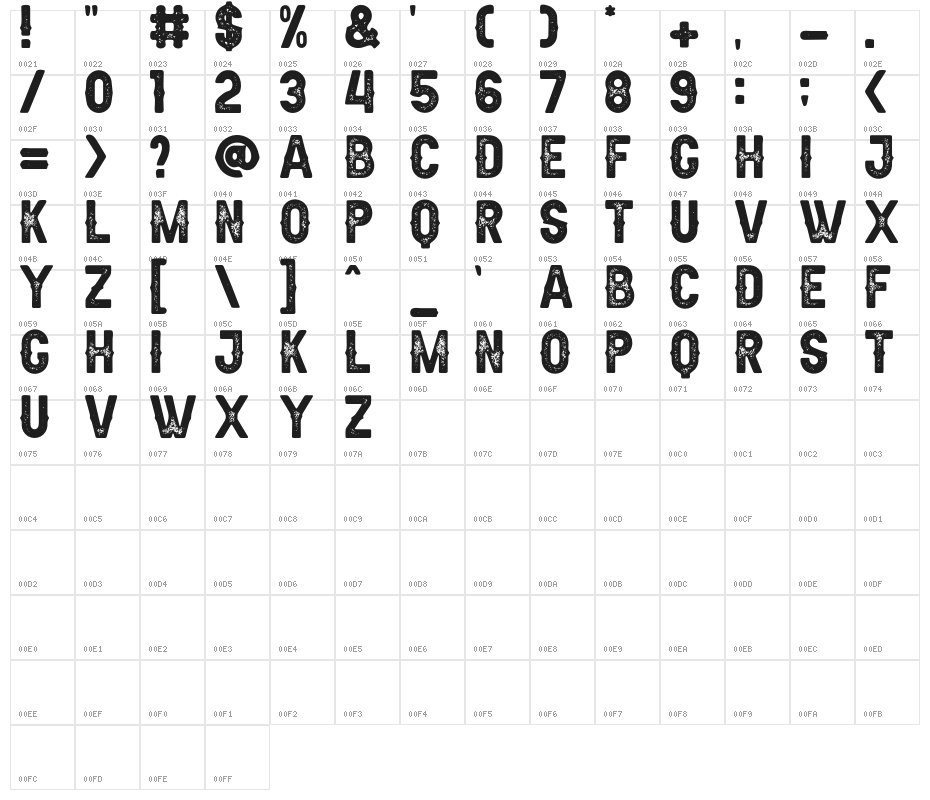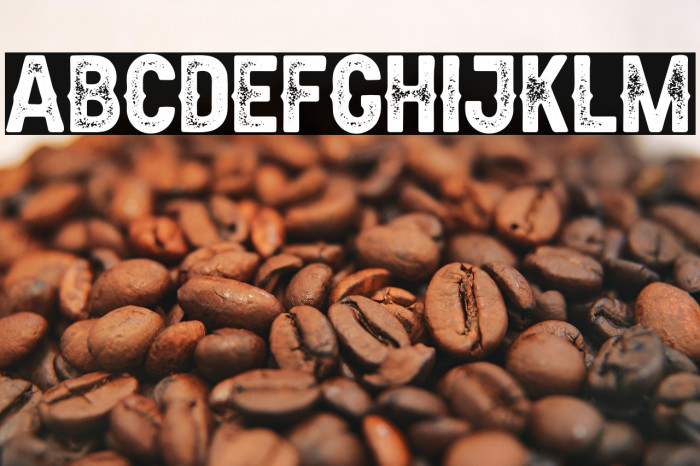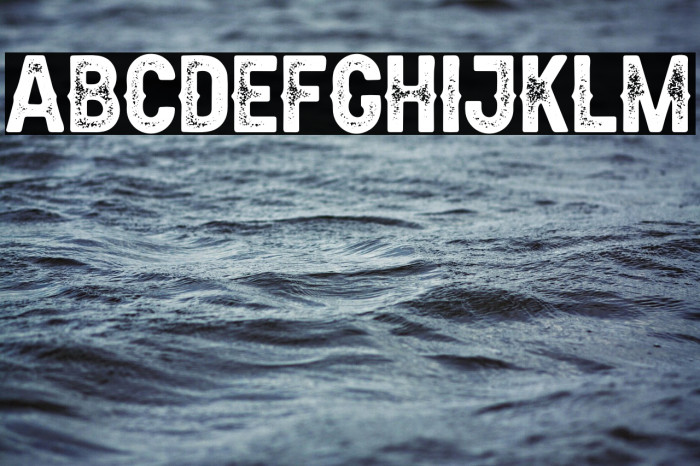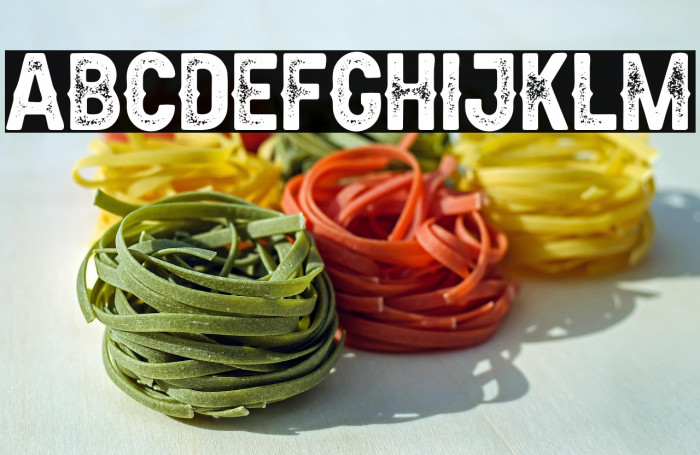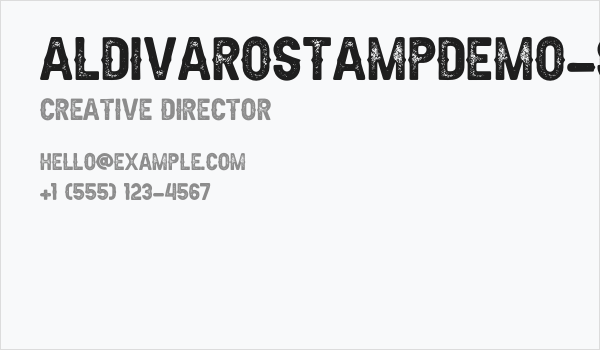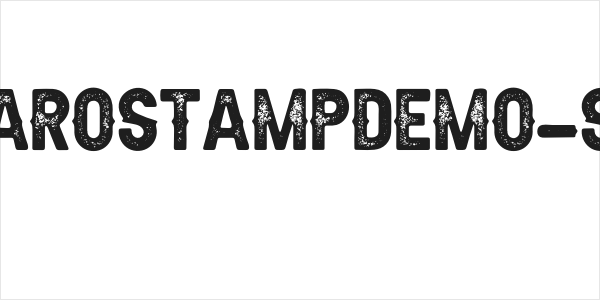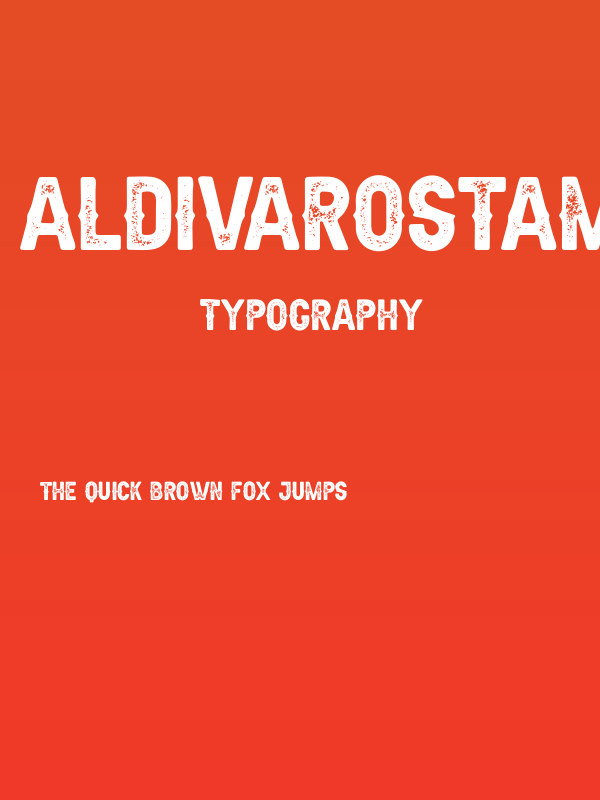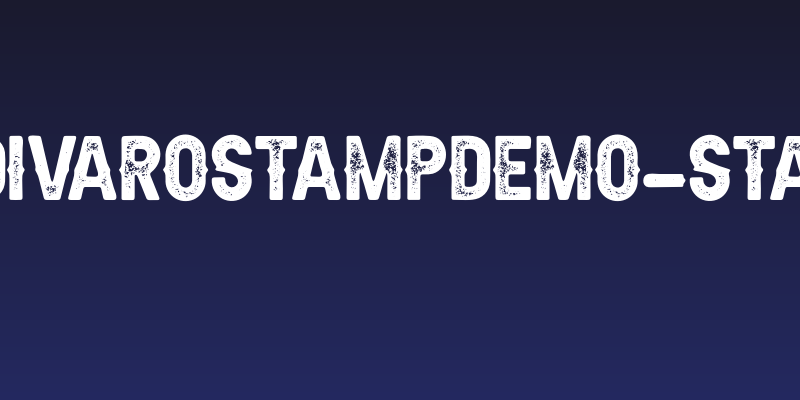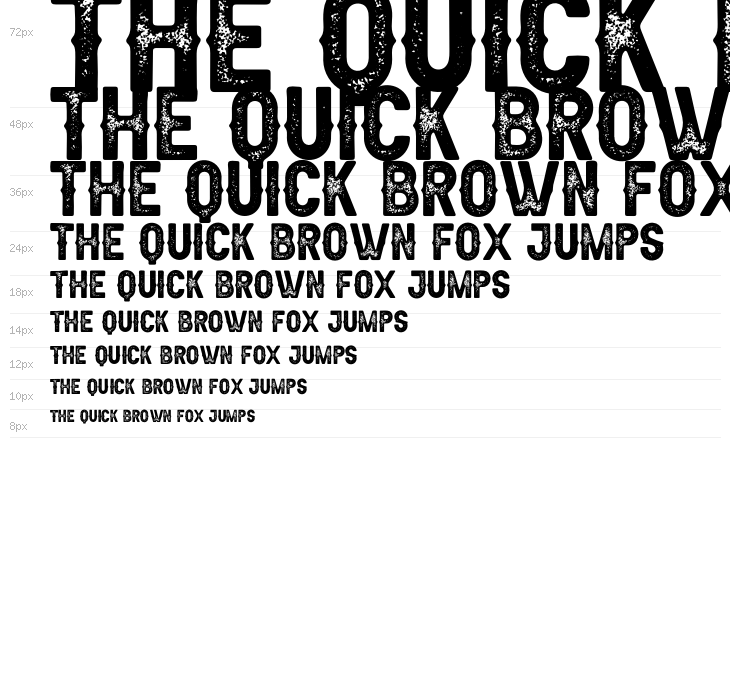
AldivaroStampDemo-Stamp Font
AldivaroStampDemo-Stamp Description
This font features a bold, distressed style that mimics the appearance of a vintage rubber stamp. The characters are uppercase and numerals, with a rough texture that gives a worn, industrial feel. The design is consistent across all letters and numbers, providing a cohesive look. The font's rugged aesthetic makes it ideal for projects that require a touch of nostalgia or a handcrafted appearance. It is particularly effective in creating a sense of authenticity and history, making it suitable for branding, packaging, and poster designs that aim to evoke a retro or artisanal vibe.
| Proposed Projects | Ideal for vintage-themed branding, packaging, posters, and artisanal product designs. |